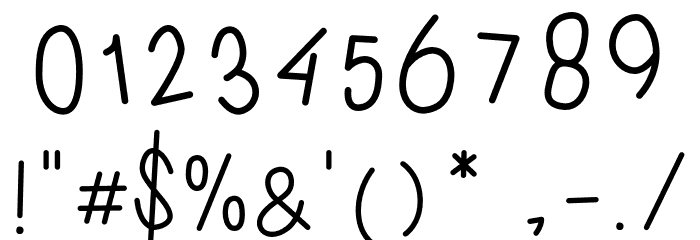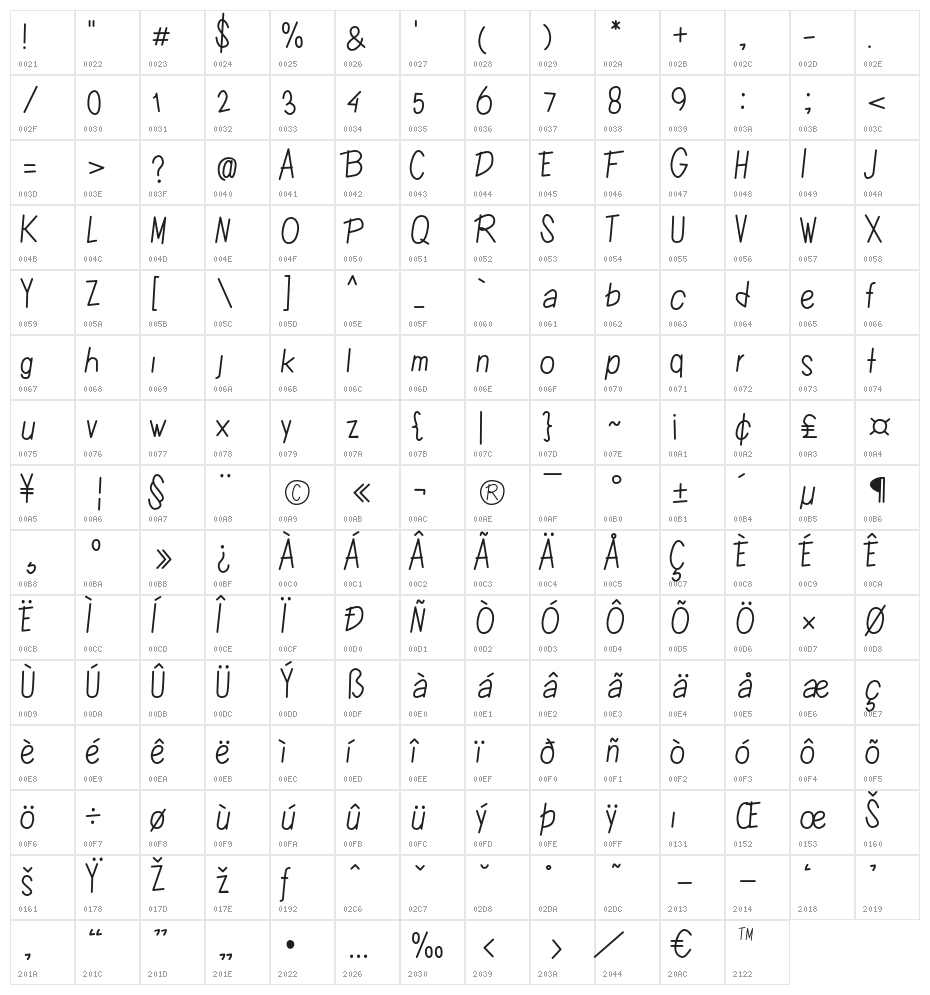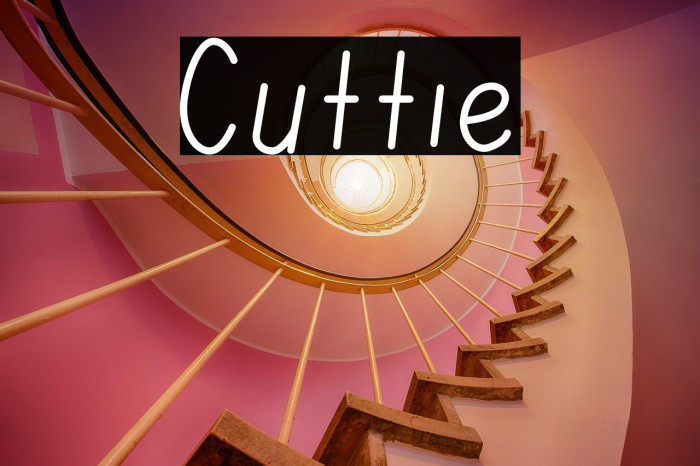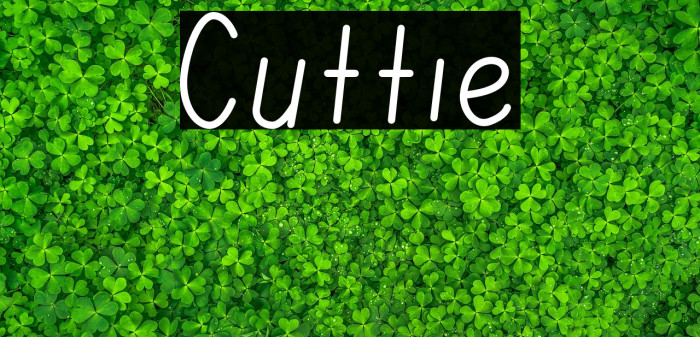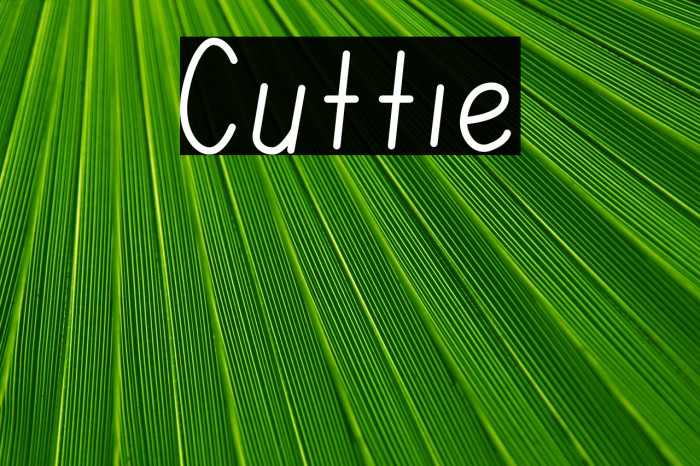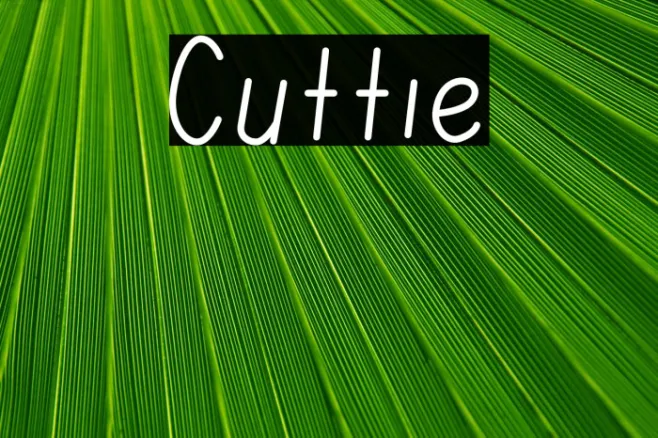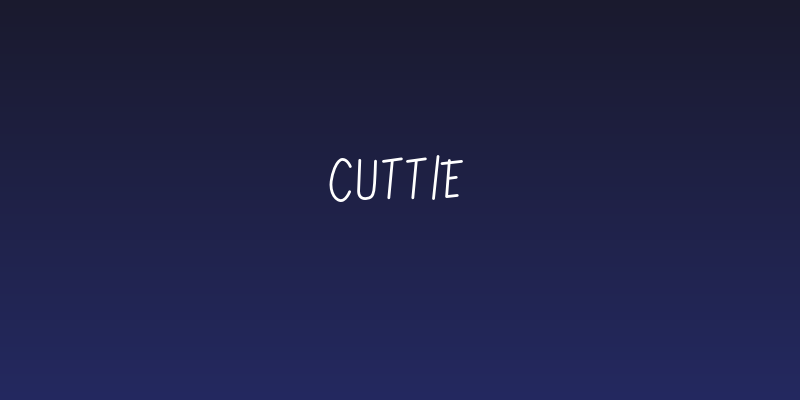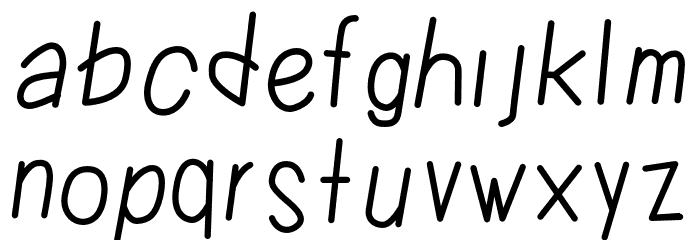
Cuttie Font
Cuttie Description
This playful and informal font features a handwritten style that exudes a sense of friendliness and approachability. The characters are slightly slanted, adding a dynamic and casual feel. Each letter is crafted with a consistent stroke width, giving it a uniform appearance while maintaining the charm of hand-drawn text. The font includes a full set of uppercase and lowercase letters, numbers, and a variety of punctuation marks and special characters. Its whimsical nature makes it perfect for projects that require a personal touch or a fun, lighthearted vibe.
| Proposed Projects | Ideal for greeting cards, children's books, playful branding, and casual invitations. |